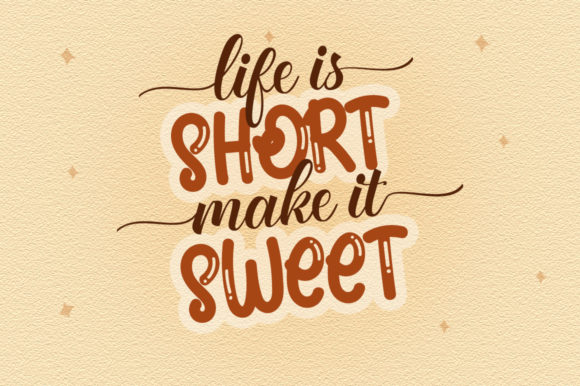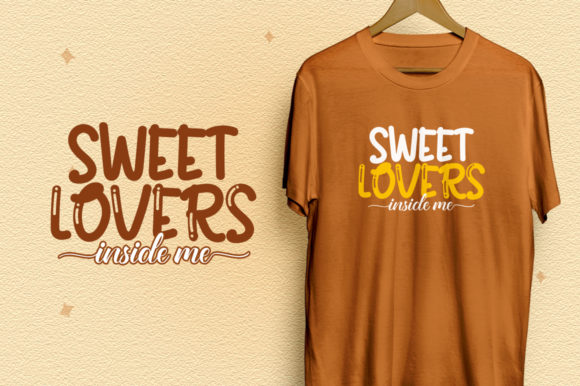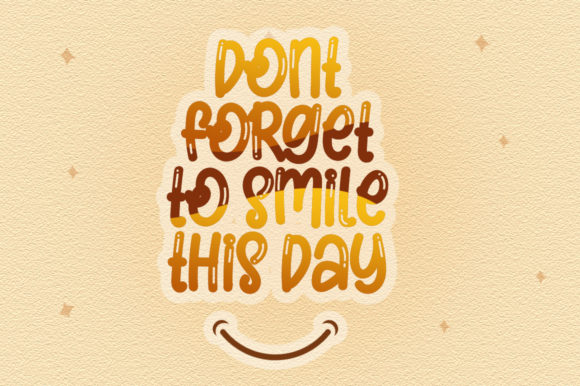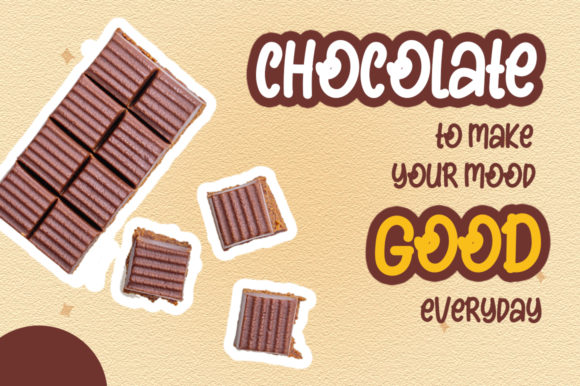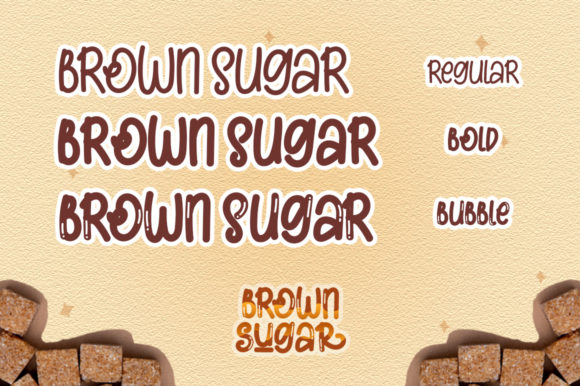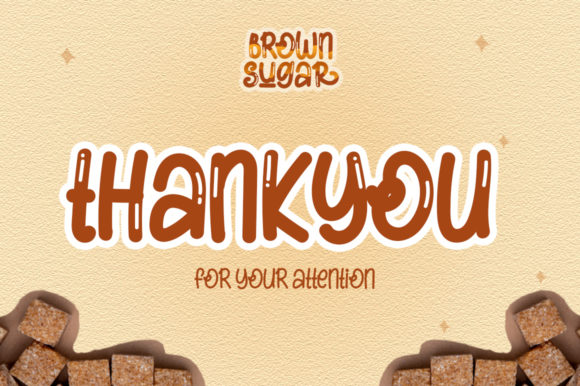
The Perfect Sweet Addition to Your Designs
Have you ever been brainstorming ideas for a project and suddenly, a burst of creativity hits you? It’s that magical moment when everything falls into place, and your design comes alive. For many of us, it’s the perfect time to add the finishing touches that make our work truly special. This is where the Brown Sugar Font comes in – a cute and quirky display font that’s sure to bring a smile to your face and a pop of color to your designs.
The Brown Sugar Font is designed to add an incredibly joyful touch to your designs, making it a valuable asset for any creative project. Whether you’re working on a birthday card, a social media post, or a branding campaign, this beautiful display font is sure to make your work stand out from the crowd. With its playful and whimsical style, the Brown Sugar Font is the perfect addition to any designer’s toolkit.
Brown Sugar Font Key Features
- Font Family: Brown Sugar is a sans-serif font family.
- Unique Characteristics: Features a unique blend of modern and vintage elements, with a warm, golden tone reminiscent of brown sugar.
Brown Sugar Font Review
Overall, I found the Brown Sugar font to be a charming and unique addition to any design project. It has a distinct personality that can add a touch of warmth and nostalgia to your work.
What works well: ✨ The font’s irregularities and imperfections give it a handmade feel that can be very appealing to designers looking for something more organic. ✨ The Brown Sugar font also comes in a range of weights, from light to bold, which makes it highly versatile and suitable for various design applications.
What could be improved: ⚠️ One of the limitations of the Brown Sugar font is its relatively low legibility, especially at smaller font sizes. This may make it challenging to use in situations where readability is a top priority. ⚠️ Additionally, the font’s unique characteristics may not be suitable for all design projects, particularly those that require a more modern or minimalist aesthetic.
Overall, I would recommend the Brown Sugar font for designers who want to add a touch of personality and whimsy to their work. However, it may not be the best choice for projects that require high legibility or a more contemporary look.
Pros and Cons:
- ✨ Unique and charming personality
- ✨ Highly versatile and suitable for various design applications
- ⚠️ Low legibility, especially at smaller font sizes
- ⚠️ May not be suitable for modern or minimalist design projects
Brown Sugar Font is ideal for:
- Home decor and textile design
Remember to pair Brown Sugar Font with complementary colors and graphics to achieve a cohesive look.
Alternatives to Brown Sugar Font for Designers
Lato Font is a clean, modern sans-serif typeface designed by Łukasz Dziedzic. It’s perfect for creating a sleek and professional look in various digital platforms. Lato is a great alternative to Brown Sugar Font when you need a more minimalist and elegant design.
Comparison: Lato Font is more formal and elegant compared to Brown Sugar Font’s warm and casual feel.
Montserrat Font is a geometric sans-serif typeface designed by Julieta Ulanovsky. It’s ideal for creating a modern and urban feel in digital designs. Montserrat is a great alternative to Brown Sugar Font when you need a bold and edgy design.
Comparison: Montserrat Font is more geometric and modern compared to Brown Sugar Font’s organic and handwritten feel.
Great Vibes Font is a beautiful, elegant script typeface designed by Javier Lopez. It’s perfect for creating a romantic and sophisticated look in various digital platforms. Great Vibes is a great alternative to Brown Sugar Font when you need a more luxurious and elegant design.